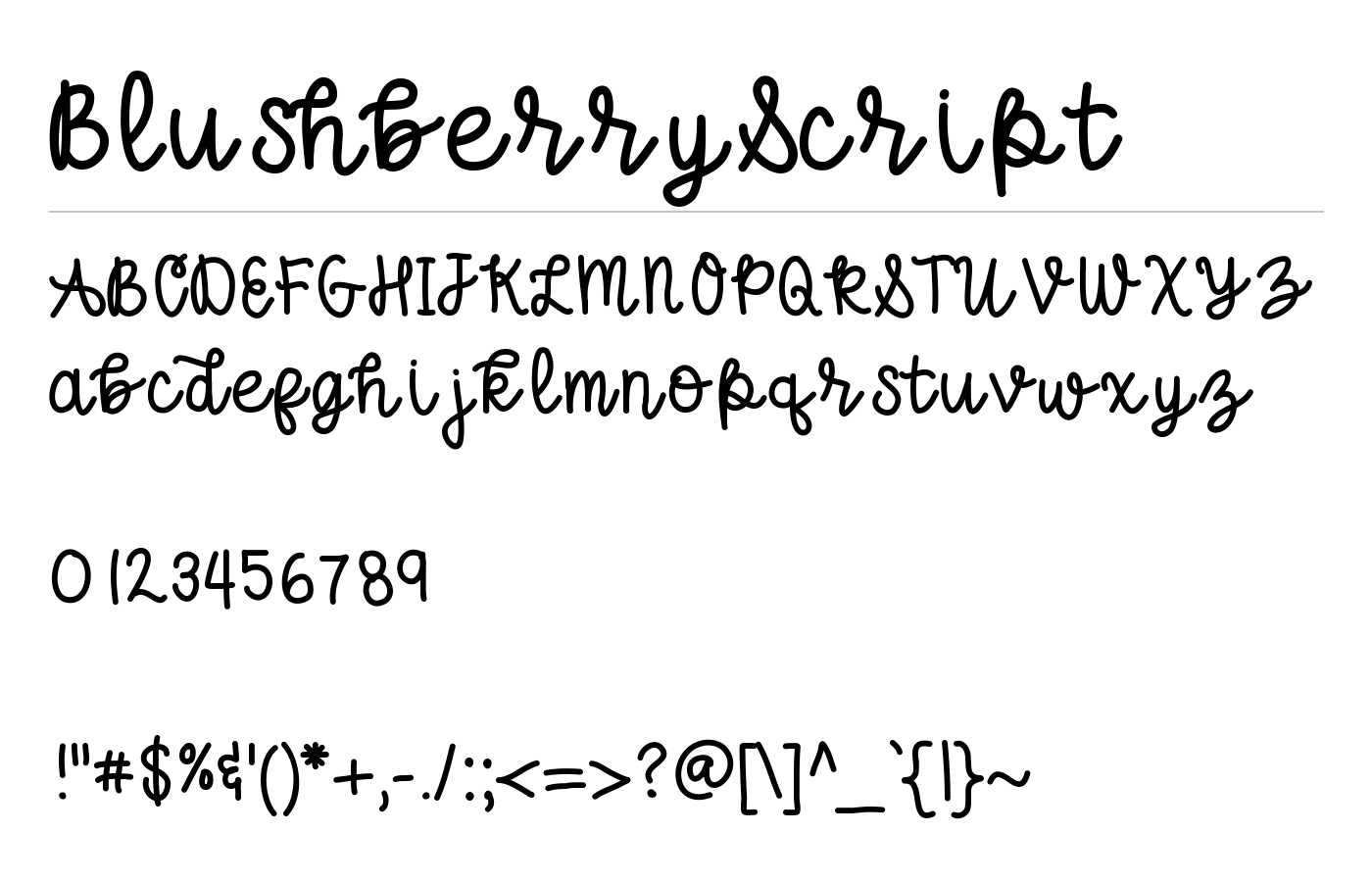
BlushberryScript is a playful and charming handwritten script font with smooth, rounded strokes that give it a casual yet friendly feel. Its lively letterforms, including unique looped characters and evenly spaced shapes, make it perfect for creative projects, informal branding, and personal invitations. This font adds a warm, approachable touch to any design, ideal for crafting a fun and inviting atmosphere.
BlushberryScript Font
About BlushberryScript Font